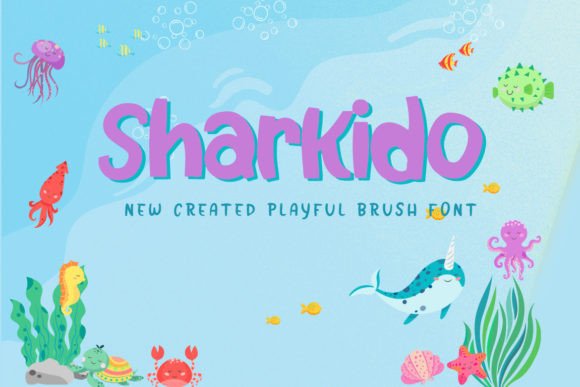
Dive into the whimsical world of Sharkido, a display font that's as playful as a dolphin in a coral reef! With its smooth, rounded curves, Sharkido dances across your designs like a gentle ocean breeze. Each letterform is a tiny masterpiece, meticulously crafted to evoke a sense of joy and optimism.
Picture this: your designs transformed into a playful paradise, each word a sugary treat that tickles your customers' fancy. Candy packaging adorned with Sharkido's sweet embrace, greeting cards that burst with cheer, and whimsical projects that radiate pure delight.
Sharkido isn't just a font; it's an invitation to embark on a joyous adventure. Its cheerful demeanor is like a ray of sunshine, spreading warmth and happiness wherever it goes. Embrace the magic of Sharkido and watch your designs blossom into a vibrant, unforgettable experience.
Don't let your designs swim in the sea of ordinary. Dive deep into the enchanting realm of Sharkido and let its playful charm captivate your audience. Each stroke, each letterform, is a stroke of genius, ready to transform your creations into a masterpiece.